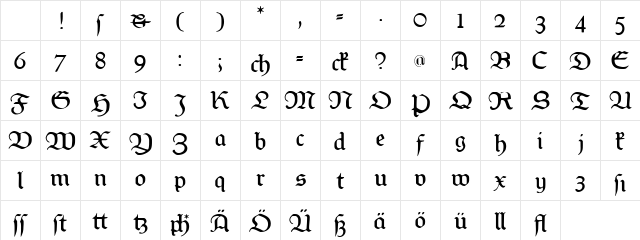
Weiss-Fraktur draws on the rich tradition of blackletter calligraphy, with dense, angular strokes that evoke medieval manuscripts and old-world craftsmanship.
Font Pairing: Pair with a clean neutral sans-serif for body copy to let Weiss-Fraktur's character lead without overwhelming the composition.
Pro Tip: Reserve Weiss-Fraktur for display and logo use - pair it with a clean sans-serif for body copy to prevent the composition from feeling oppressive.